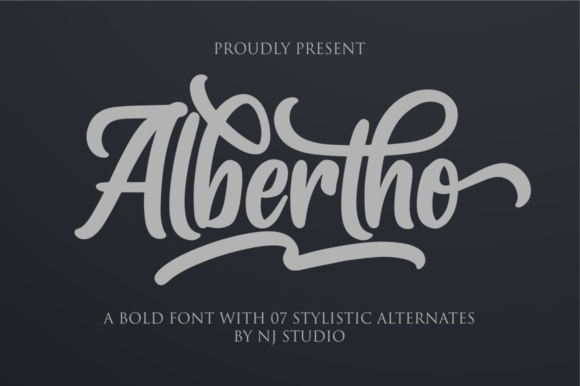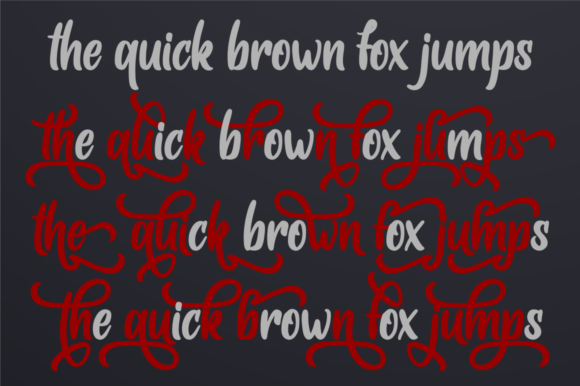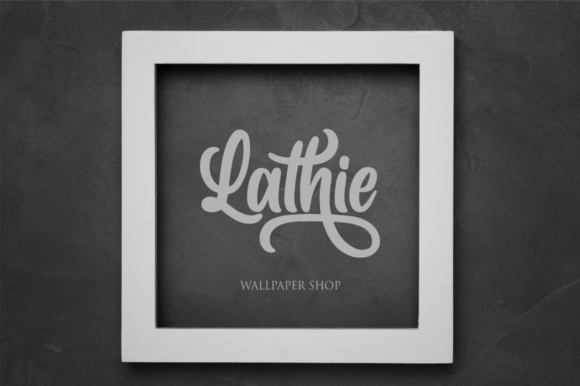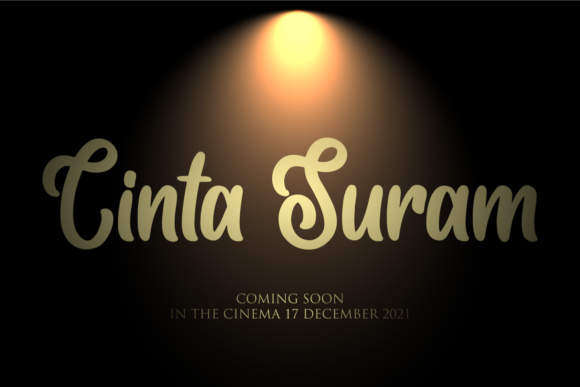
Albertho Font: A Bold Handwritten Script for Creative Branding
About the Albertho Font
From logos to headlines, the Albertho Font is the perfect choice for making a lasting impression. Albertho results out of a stunning pairing of a brush pen and pencil that makes it look incredibly endearing and authentic. Its casual charm makes it appear wonderfully down-to-earth, readable and, ultimately, incredibly versatile. Albertho will look outstanding in any context, whether it’s being used on busy backgrounds or as a standalone headline!
Albertho’s hand-drawn charm makes it ideal for projects requiring a friendly, approachable feel. It excels in headlines, short text blocks, logos, and packaging design where its unique texture adds personality. However, its informal nature makes it less suitable for body text or UI elements demanding high readability in extended paragraphs.
Consider pairing Albertho with a clean sans-serif like Open Sans for a balanced contrast, or a classic serif such as Garamond for a touch of elegance. For a more playful aesthetic, a geometric sans-serif like Montserrat could be effective. These pairings enhance Albertho’s casual energy while maintaining legibility.
The overall personality is best described as casually confident and approachable; brands targeting a younger demographic or emphasizing craft and authenticity will find Albertho particularly effective.
Albertho Font Usage Examples
Albertho Font Example